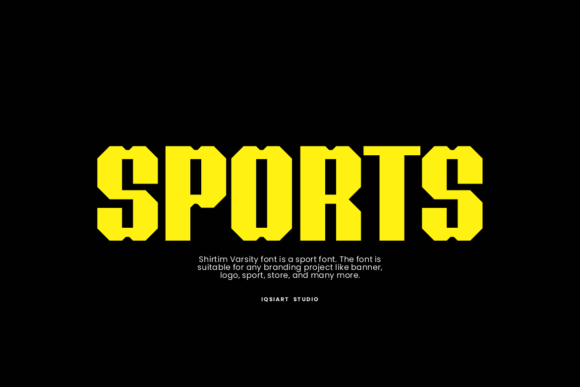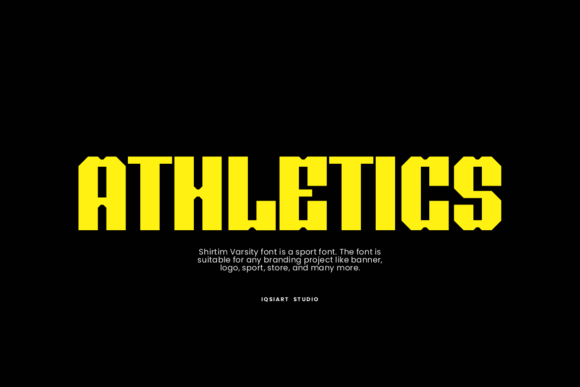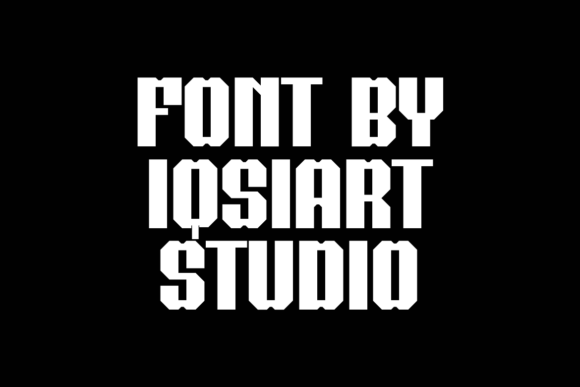
Introduction to Shirtim Varsity Font
As a designer, you’ve probably been there – staring at a blank canvas, waiting for that perfect font to spark your creativity. And then, it happens. You stumble upon a font that’s so bold, so striking, that it sets your entire design project ablaze. For me, that font was Shirtim Varsity Font – a cool and captivating display font that added a touch of sophistication to my latest creative project.
I remember the excitement I felt when I first downloaded Shirtim Varsity Font, free for use and with a transparent background that made it seamless to integrate into my design. The high-quality design made it a valuable resource for my project, and I knew I had to share it with fellow designers. In this article, we’ll dive into the world of Shirtim Varsity Font and explore what makes it a must-have design resource for any creative project.
Key Features of Shirtim Varsity Font
- Unique characteristics: Geometric sans-serif design with a modern twist
- Perfect for branding, logos, and titles in creative projects
Honest Review: Shirtim Varsity Font
As a designer, I’m always on the lookout for high-quality design resources to elevate my creative projects. Recently, I stumbled upon the Shirtim Varsity Font, and I’m excited to share my thoughts on this free download.
What works well: ✨ The Shirtim Varsity Font has a clean and modern aesthetic that’s perfect for a variety of design projects, from posters to social media graphics. The font is highly customizable, allowing me to adjust the size, color, and style to suit my needs. The transparent background is also a plus, making it easy to use in combination with other design elements.
Limitations: ⚠️ While the Shirtim Varsity Font is a great addition to my design toolkit, I did encounter some limitations. The font is not suitable for complex typography, and the characters can be a bit cramped when used in small sizes. Additionally, the font is not as extensive as some other font collections, with a limited number of styles and weights available.
Overall, I’m impressed with the Shirtim Varsity Font’s potential for enhancing my design projects. While it may have some limitations, its high quality and versatility make it a valuable resource for designers looking for a clean and modern font.
- Highly customizable
- Clean and modern aesthetic
How to Use Shirtim Varsity Font
Designing with Shirtim Varsity Font
Tips for Getting the Most Out of Shirtim Varsity Font
To maximize the impact of your design, experiment with different font sizes, colors, and combinations. Use the Shirtim Varsity Font for headings, titles, and key phrases to draw attention and create visual interest.
Common Use Cases for Shirtim Varsity Font
The Shirtim Varsity Font is suitable for a variety of projects, including posters, flyers, brochures, and social media graphics. Its high-quality design makes it an ideal choice for presentations, reports, and academic papers.